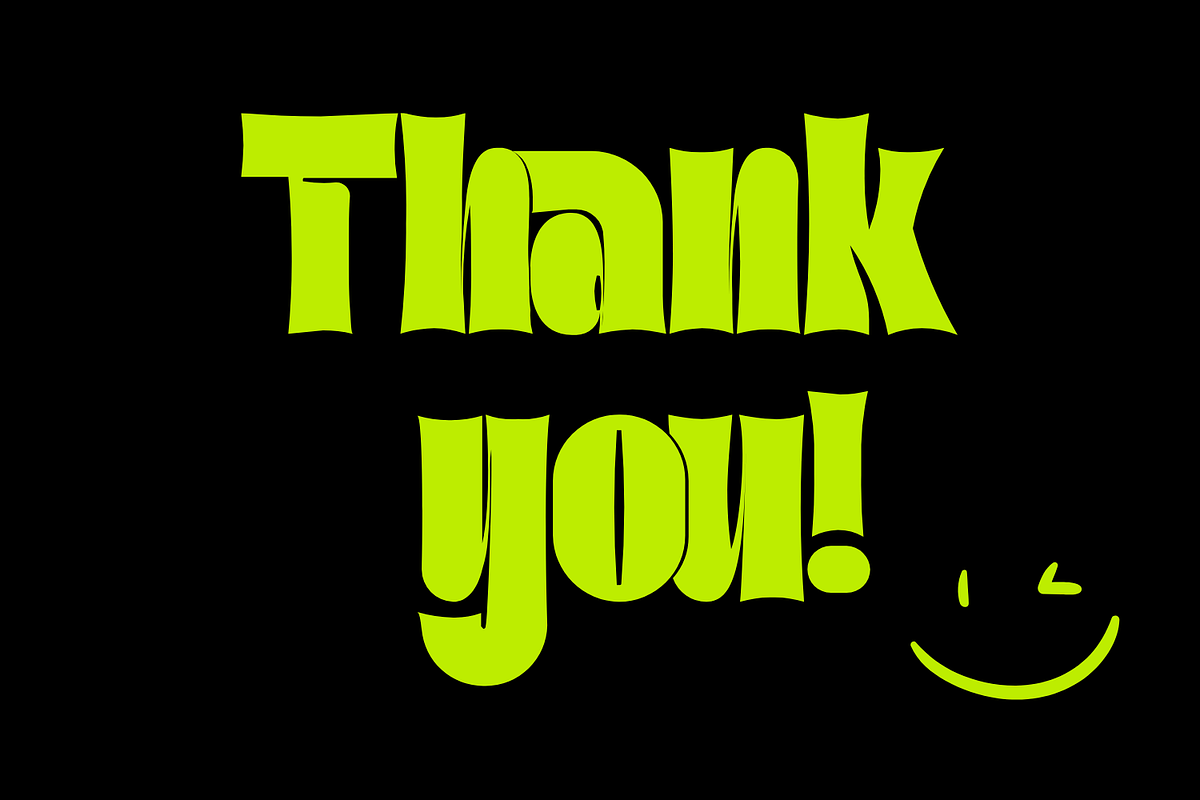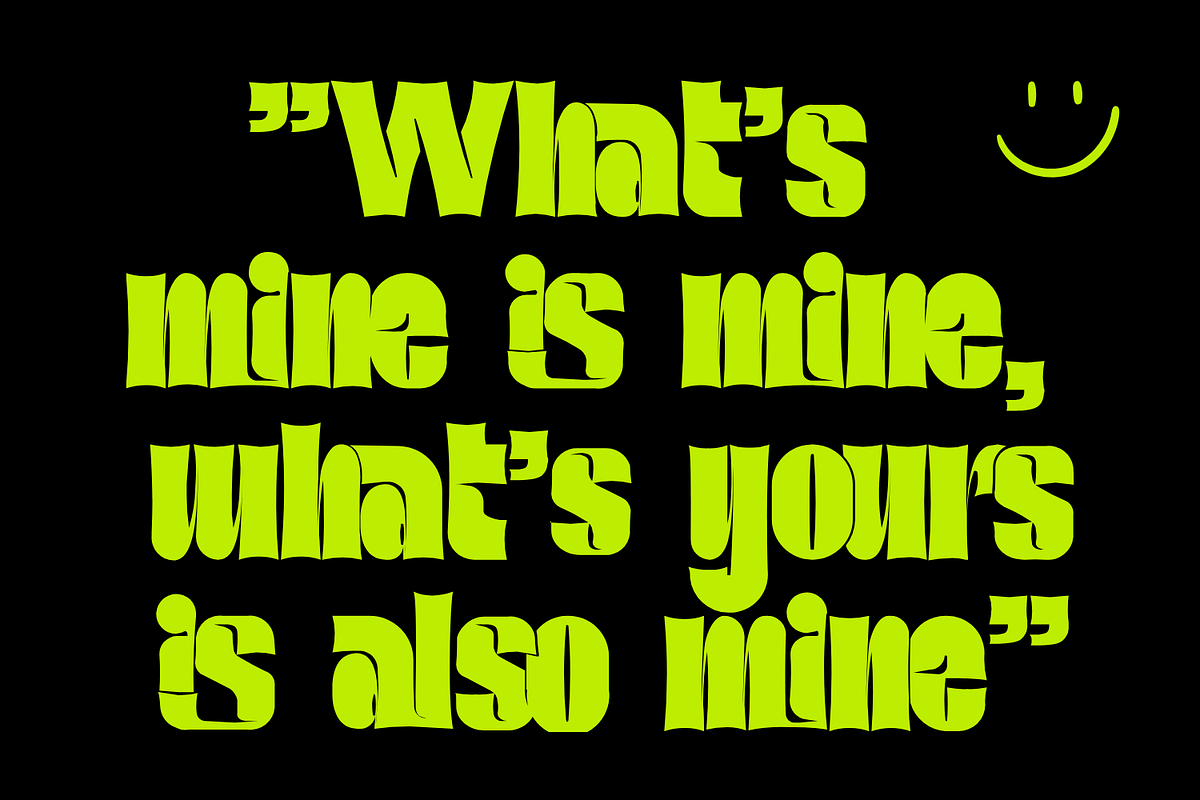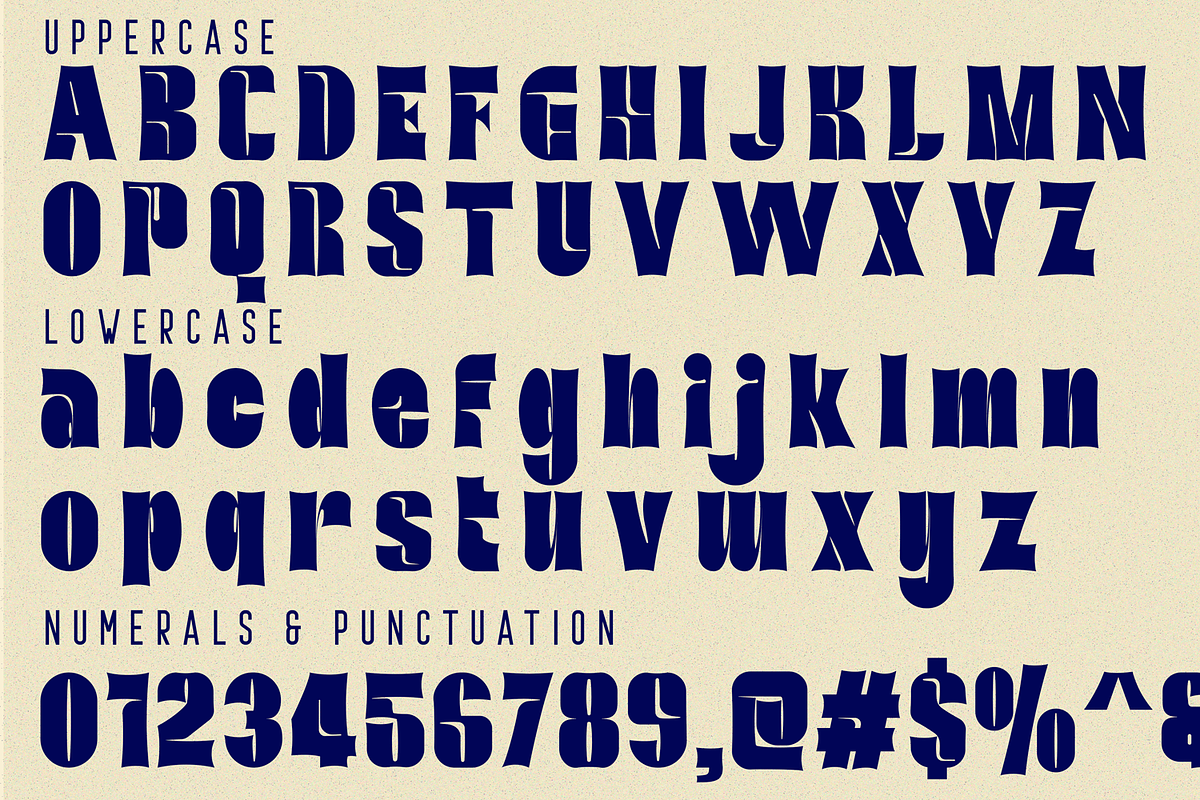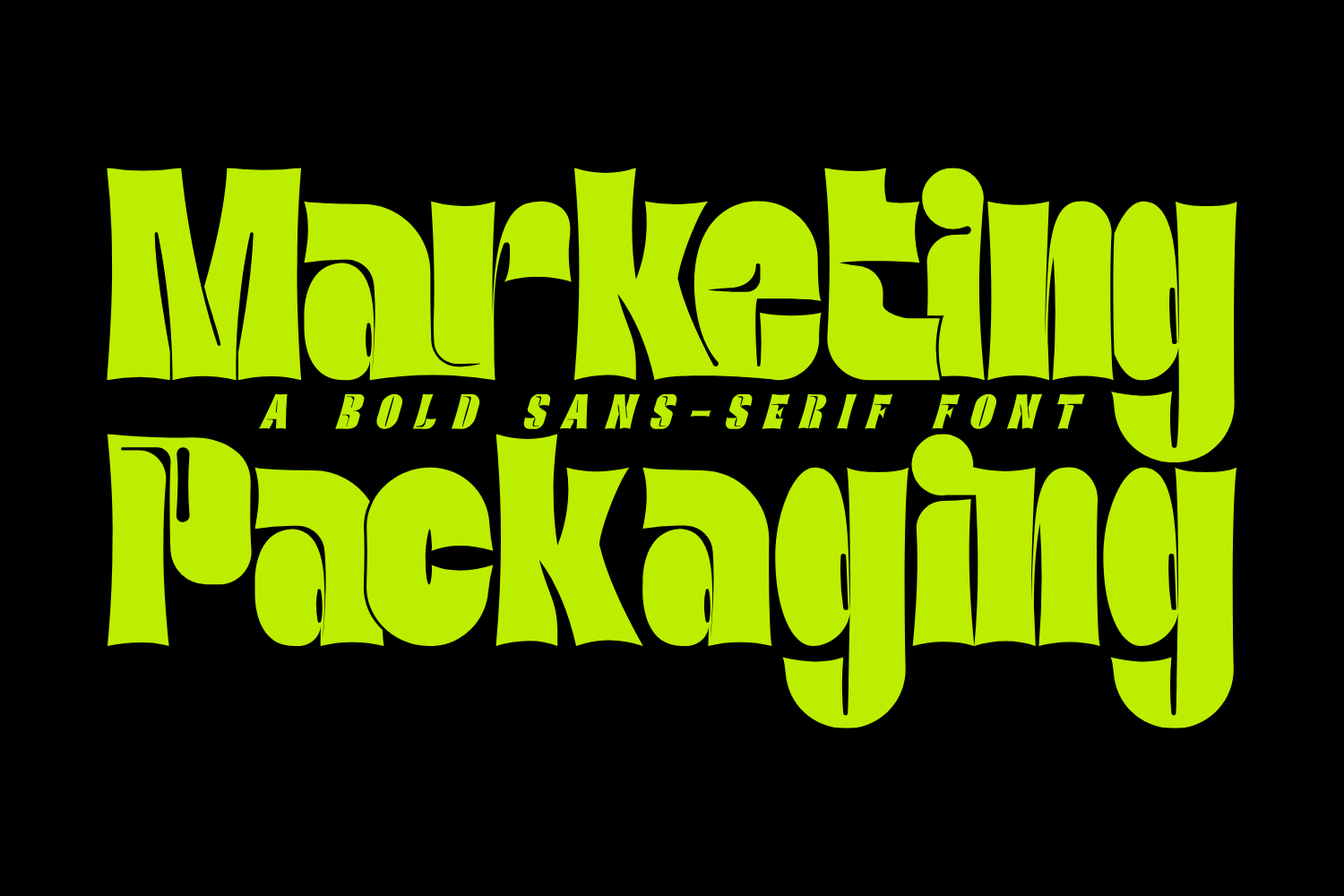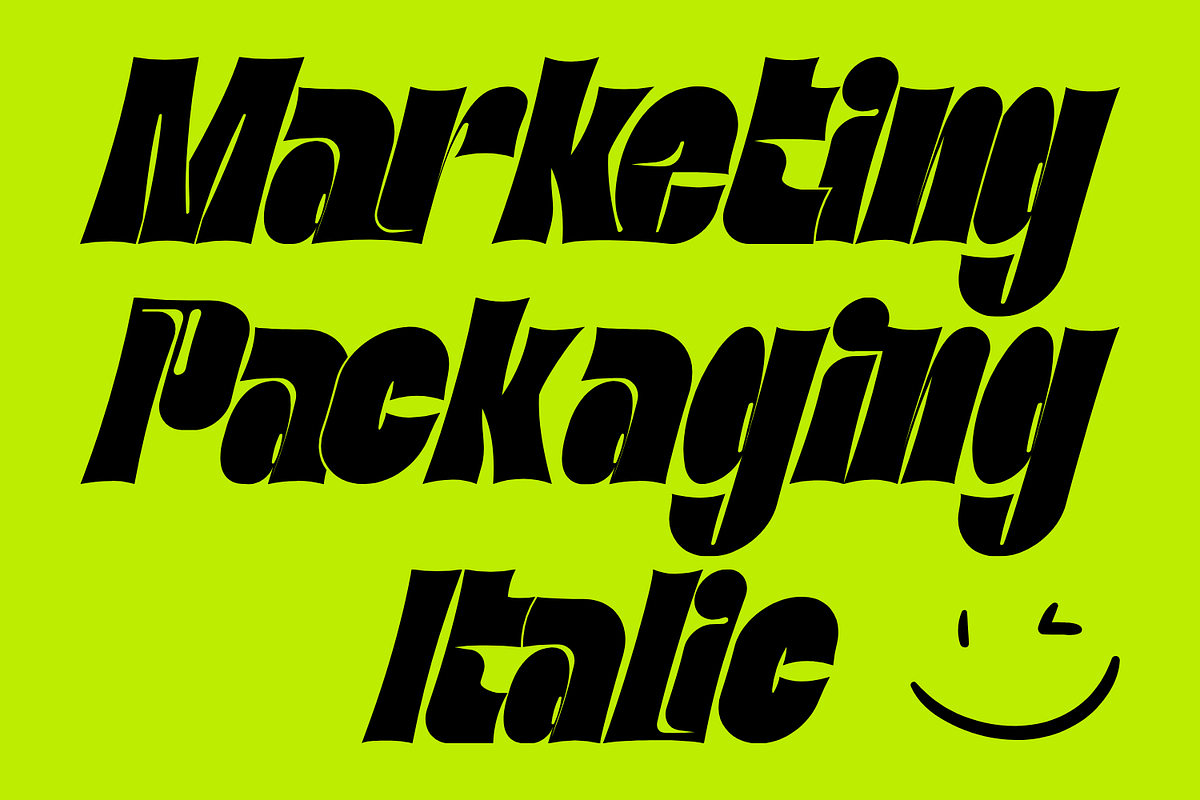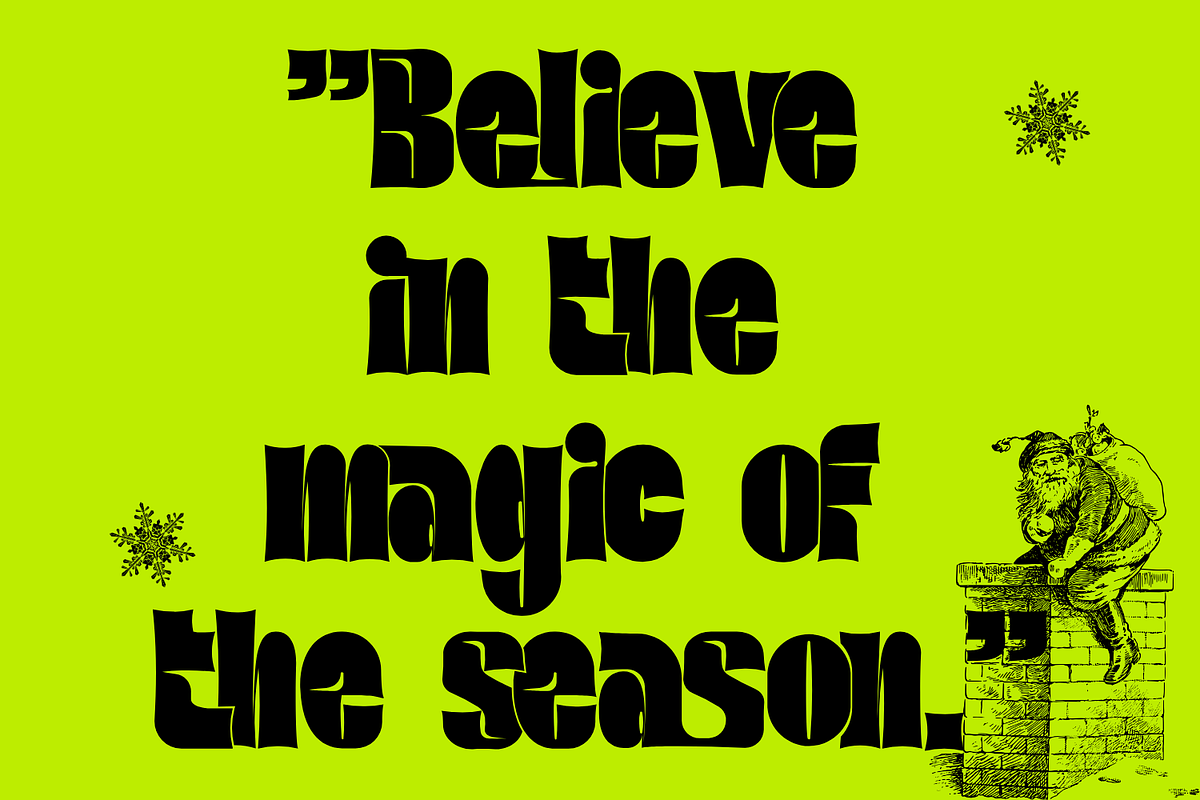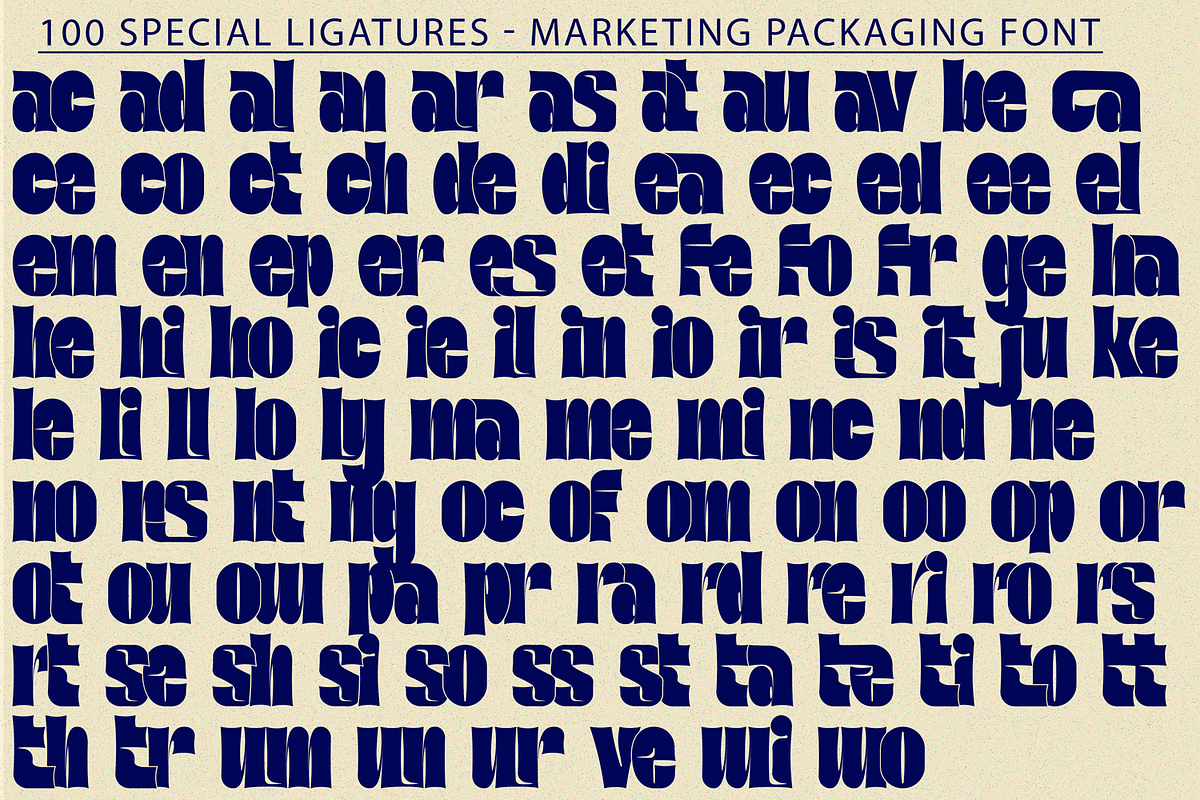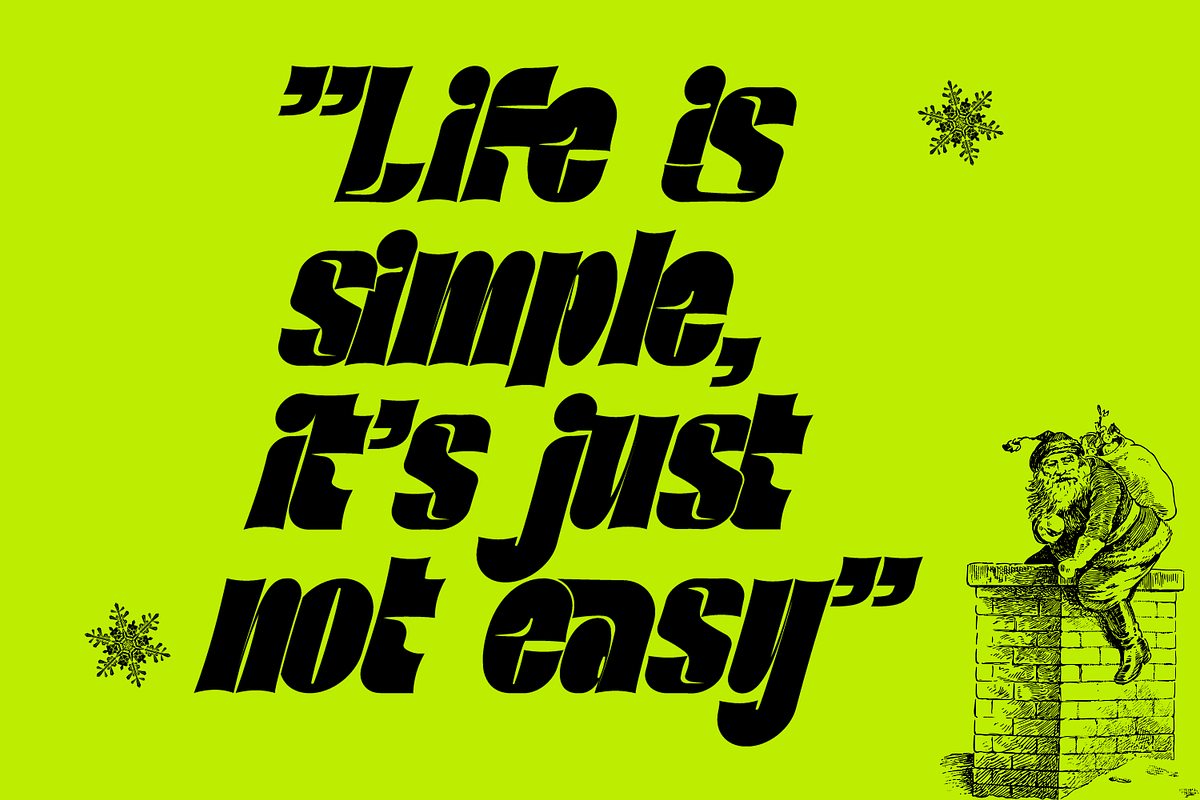
Marketing Packaging Font
Marketing Packaging Font is a modern high-contrast display font with bright positive character. It’s quirky, groovy, and funky— definitely charming. Bold and thick, a fun typeface to play with! It's a bold display typeface that is both fun and powerful, amusing yet impactful. It is visually striking and unique; unforgettable and un-ignorable. Excellent for brand identities, logos, packaging, posters and the like.
Marketing Packaging was built with OpenType features and includes 100 ligatures, alternate, numbers, punctuation, and it also supports other languages.
ac ad al an ar as at au av be ca ce ch co ct de di ea ec ed ee el em en ep er es et fe fo fr ge ha he hi ho ie ic il in io ir is it ju ke la le li ll lo ly ma me mi nc nd ne ng no nt ns oc of om on oo op or ot ou ow pa pr ra rd re ri ro rs rt se sh si so ss st ta te th ti to tr tt um un ur ve wi wo
- Special Ligatures